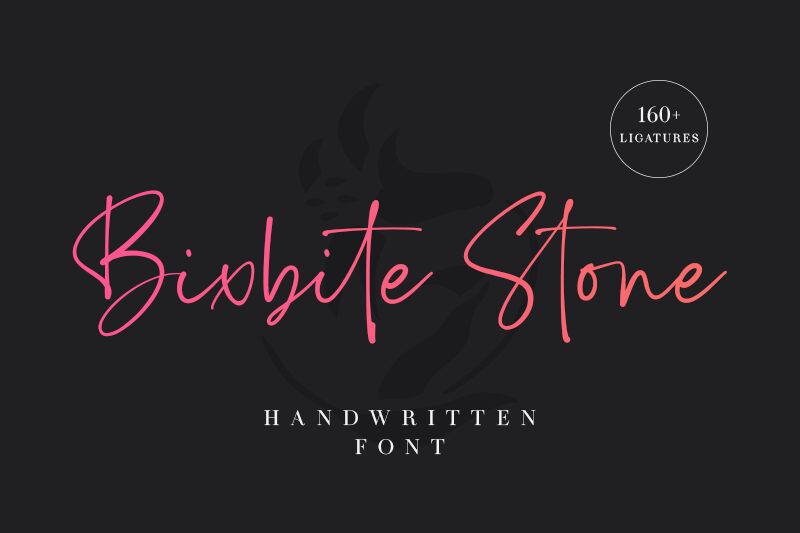
Bixbite Stone
Bixbite Stone, designed by Lemonthe, exudes a captivating handwritten charm with its signature-like aesthetic. This light-weight font radiates an organic, personal touch, seamlessly blending a touch of elegance and a hint of whimsy. The fluid, expressive strokes evoke a sense of artistry and individuality, making it a standout choice for projects seeking a distinctive, handcrafted feel.
The versatile nature of Bixbite Stone allows it to shine across a variety of applications, from personalized stationery and wedding invitations to editorial layouts and branding materials. Its natural, expressive qualities lend themselves beautifully to showcasing artisanal products, highlighting personal narratives, or adding a distinctive flair to any design project that calls for a touch of refined, handwritten charm.